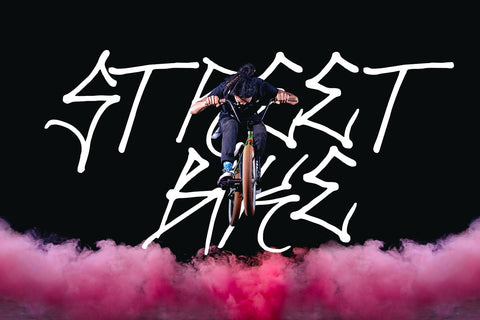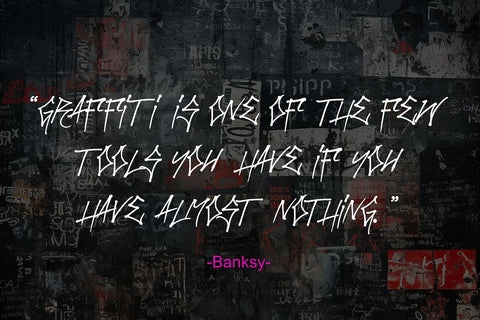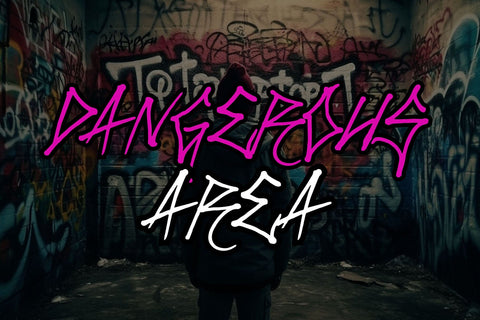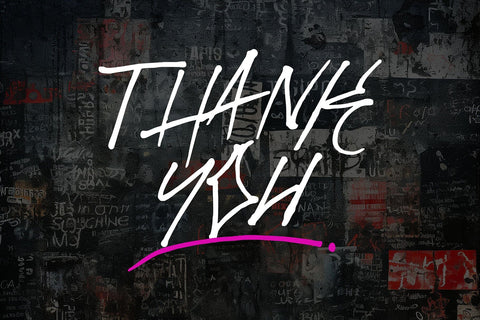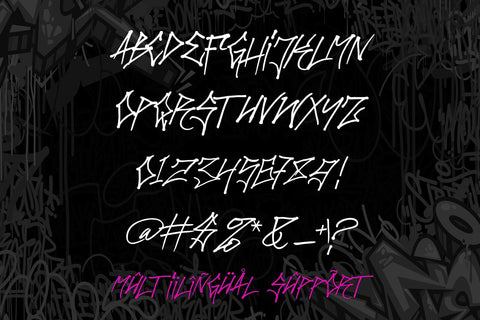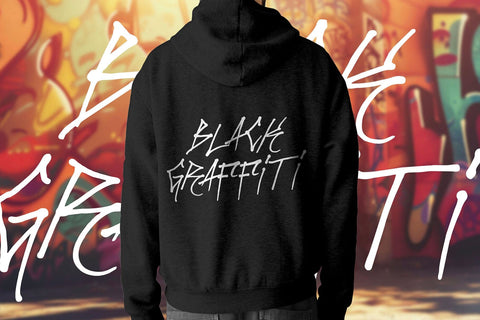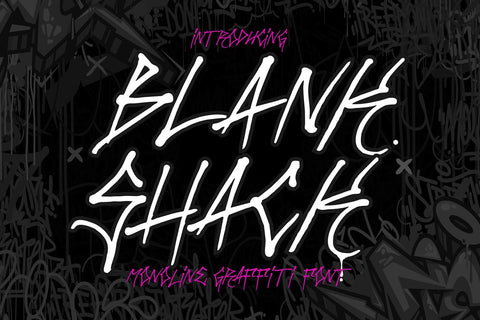
Blank Shack - Monoline thin Graffiti Font
"Blank Shack" is a thin monoline graffiti font that combines sleek, continuous lines with a modern urban edge. Its minimalist design is perfect for adding a touch of sophistication and style to your projects while retaining an authentic graffiti vibe. Ideal for street art, posters, branding, and any creative work that calls for a clean yet edgy typographic element, "Blank Shack" provides a unique and contemporary look to make your designs stand out.